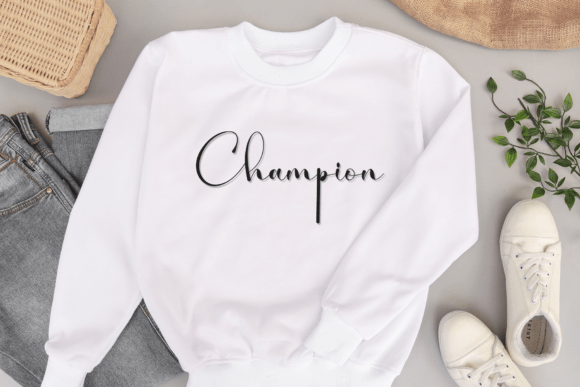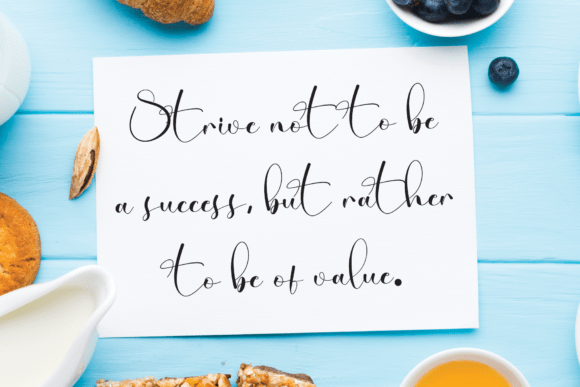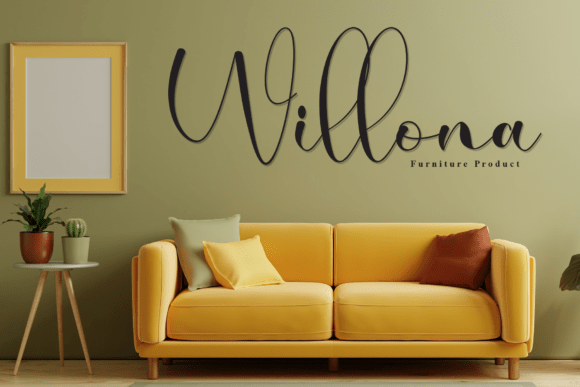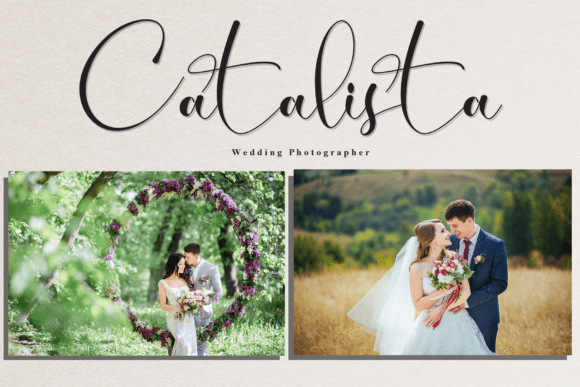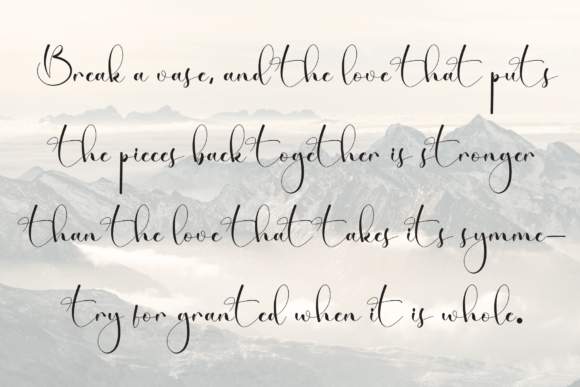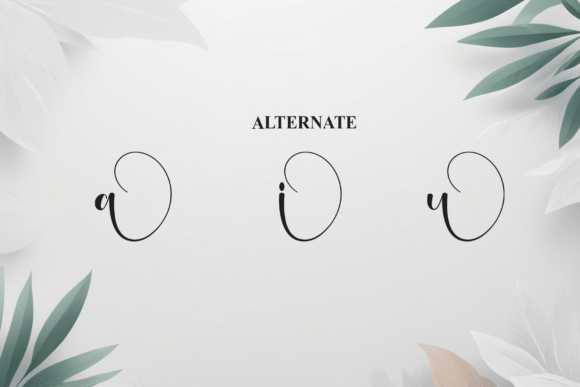
Discover the Elegance of Angelina Font: A Modern Calligraphy Script
Step into a world of sophistication and luxury with the Angelina font, a stunning script that embodies the essence of modern calligraphy with a personal touch. This beautiful typeface is designed to add a touch of elegance to any design project, from high-end branding to wedding invitations and editorial layouts.
The Characteristics of Angelina Font
The Angelina font features delicate, dancing baselines and smooth, flowing connectors that mimic the natural rhythm of sophisticated handwriting. Its unique design makes it perfect for adding a layer of organic luxury to any design project. The font’s elegant and refined appearance is sure to captivate your audience and leave a lasting impression.
Perfect for High-End Branding and Designs
The Angelina font is ideal for designers and crafters looking to add a touch of luxury to their projects. Its sophisticated and refined appearance makes it perfect for:
- High-end branding: Add a touch of elegance to your brand’s logo and packaging with the Angelina font.
- Wedding invitations: Make your wedding invitations truly special with the Angelina font’s beautiful and elegant script.
- Lifestyle logos: Create a luxurious and sophisticated brand image with the Angelina font.
- Editorial layouts: Add a touch of elegance to your editorial layouts with the Angelina font’s refined and sophisticated appearance.
Legibility and Artistic Flair
The Angelina font excels in legibility while maintaining an artistic, free-spirited flair. Its unique design makes it easy to read and understand, making it perfect for a wide range of design projects. Whether you’re designing a logo, invitation, or editorial layout, the Angelina font is sure to impress.
Pairing Options
The Angelina font can be paired with a variety of fonts to create a unique and stunning design. Here are a few pairing options:
- Minimalist serif: Pair the Angelina font with a minimalist serif font for a balanced, high-fashion look.
- Standalone signature: Use the Angelina font as a standalone signature to give your packaging a “handmade with love” feel.
PUA-Encoded for Easy Access
The Angelina font is PUA-encoded, allowing effortless access to all glyphs, swashes, and alternate characters. This makes it easy to customize your design and add a personal touch to your projects.
Transforming Simple Text into a Visual Statement
The Angelina font has the power to transform simple text into a graceful visual statement. Whether you’re designing digital greeting cards or physical stationery, this font is sure to impress. Its elegant and refined appearance makes it perfect for a wide range of design projects.
In conclusion, the Angelina font is a breathtakingly beautiful script that captures the essence of modern calligraphy with a personal touch. Its delicate, dancing baselines and smooth, flowing connectors make it perfect for high-end branding, wedding invitations, lifestyle logos, and editorial layouts. With its excellent legibility and artistic flair, the Angelina font is sure to impress designers and crafters alike.
With the Angelina font, you’re not just choosing a font – you’re choosing a design partner that will help you elevate your designs to new heights. Whether you’re a designer, crafter, or DIY enthusiast, this font is sure to inspire you to create something truly special.